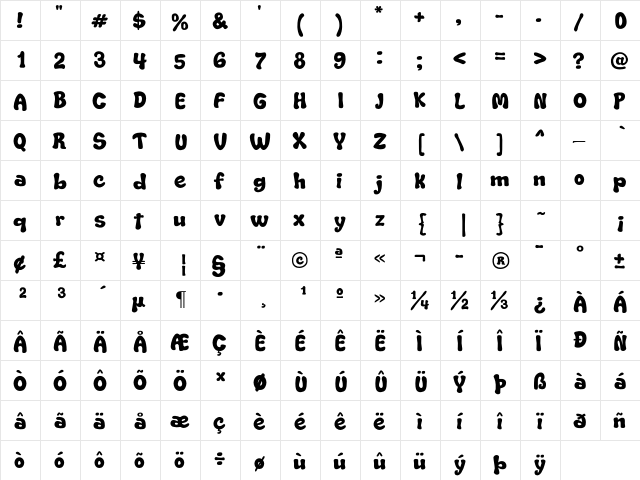
Soft Marshmallow Turbo Regular
Design Context for Soft Marshmallow Turbo Typeface
Soft Marshmallow Turbo is a composed and adaptable typeface that performs quietly and consistently across a wide range of design contexts.
Pro Tip: Use Soft Marshmallow Turbo in both headline and body roles to test its range before committing to a single application.